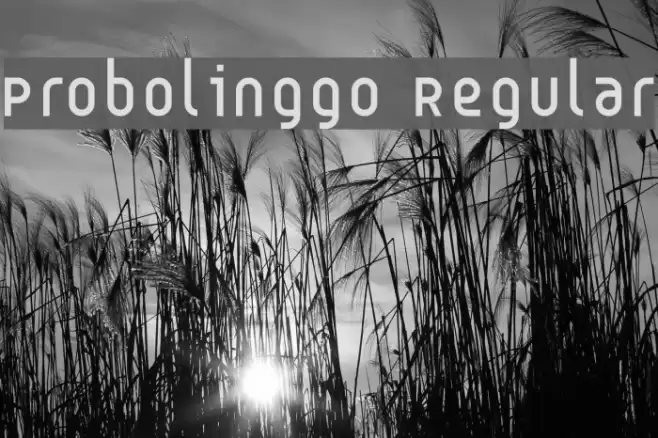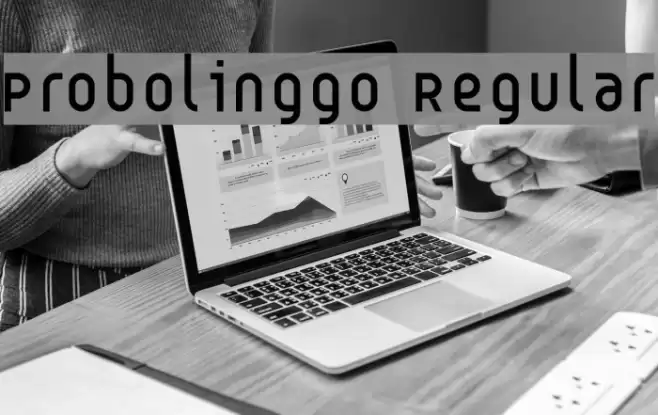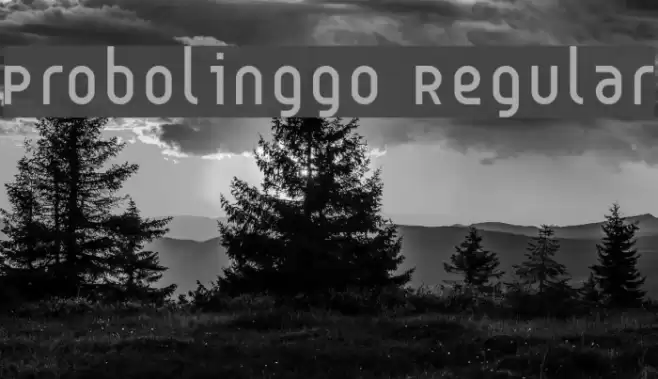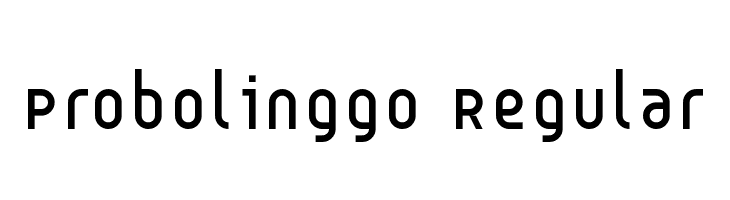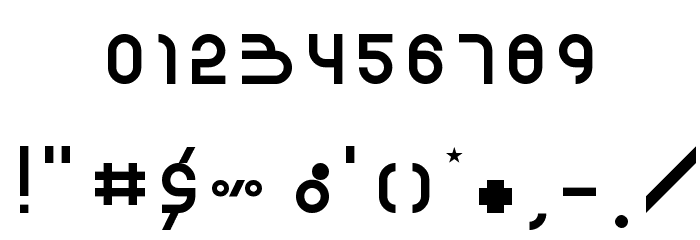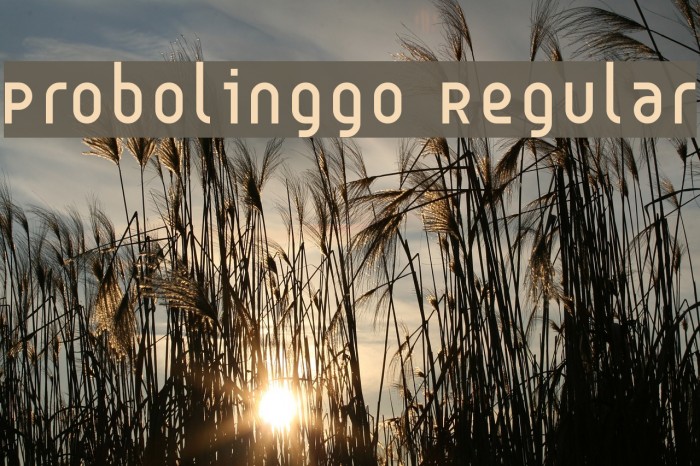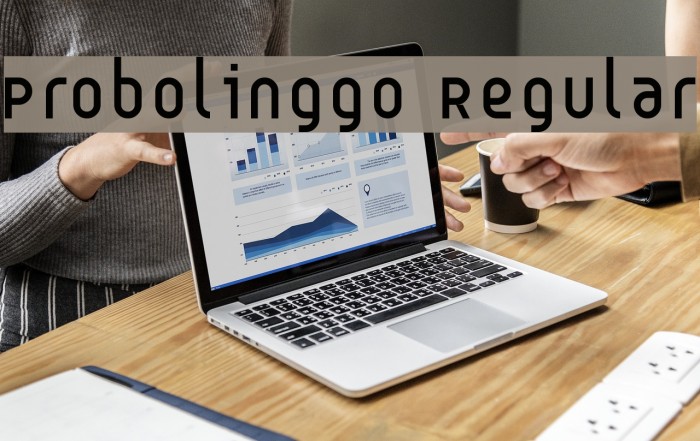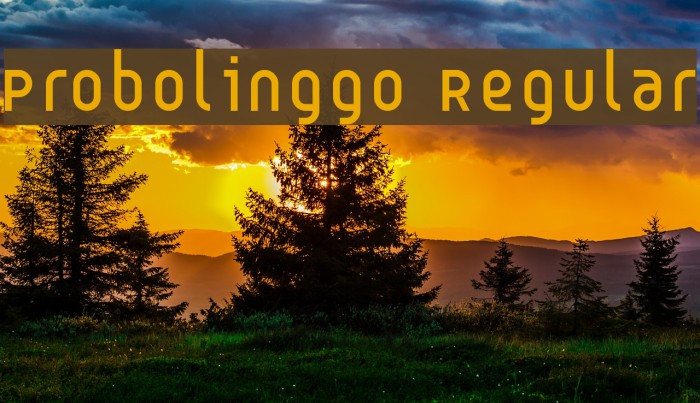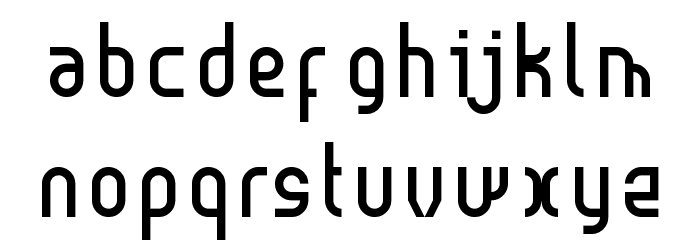
Probolinggo Regular Font
Probolinggo Regular Description
This font features a modern and geometric design with a unique blend of curves and straight lines. The uppercase letters exhibit a bold and structured appearance, while the lowercase letters maintain a consistent style with slight variations in curvature. The numerals are distinct and easy to read, complementing the overall aesthetic. Special characters are designed with a similar geometric flair, ensuring cohesion across all elements. The font's clean lines and balanced proportions make it versatile for various design applications.
A modern, geometric font with bold, structured uppercase and cohesive lowercase letters from Uncategorized fonts.
- Proposed Projects: Ideal for branding projects, modern web design, and innovative product packaging.
- Use Case: Headlines, Logos, Branding